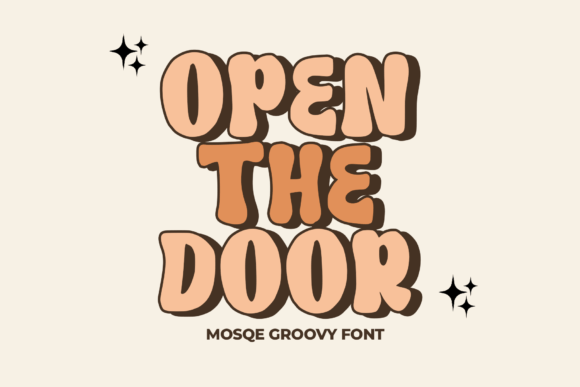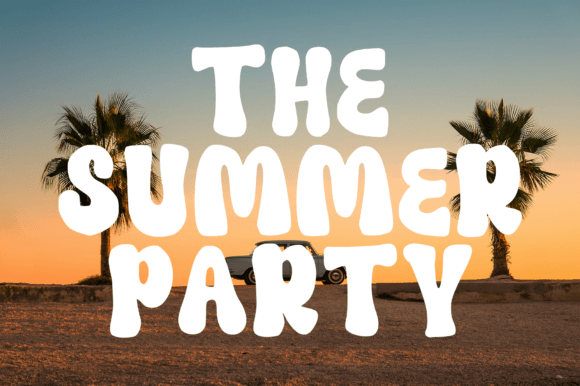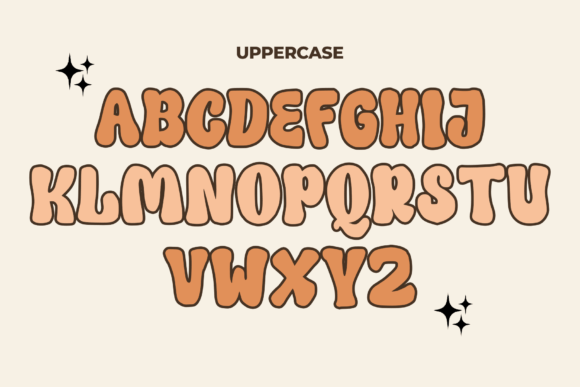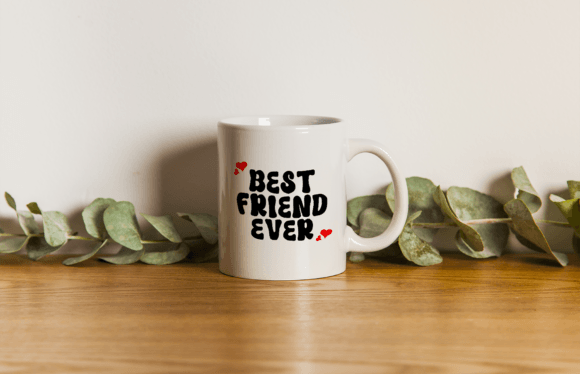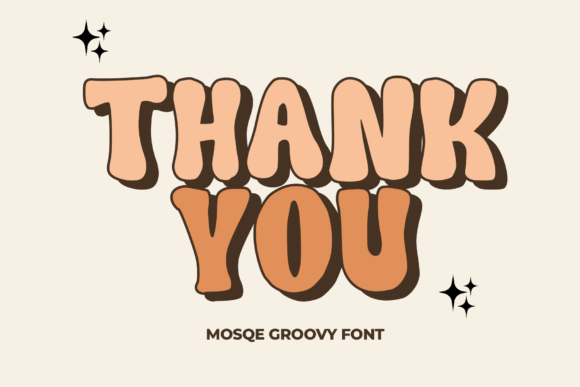
Introduction to Mosqe Groovy Font
Mosqe Groovy is a bold, and thick font that will help you create fun and playful designs and will look good on a variety of branding and packaging projects.
This chubby font features the perfect combination of fun and creativity to instantly grab anyoneโs attention .
Key Features of Mosqe Groovy Font
Why Choose Mosqe Groovy Font?